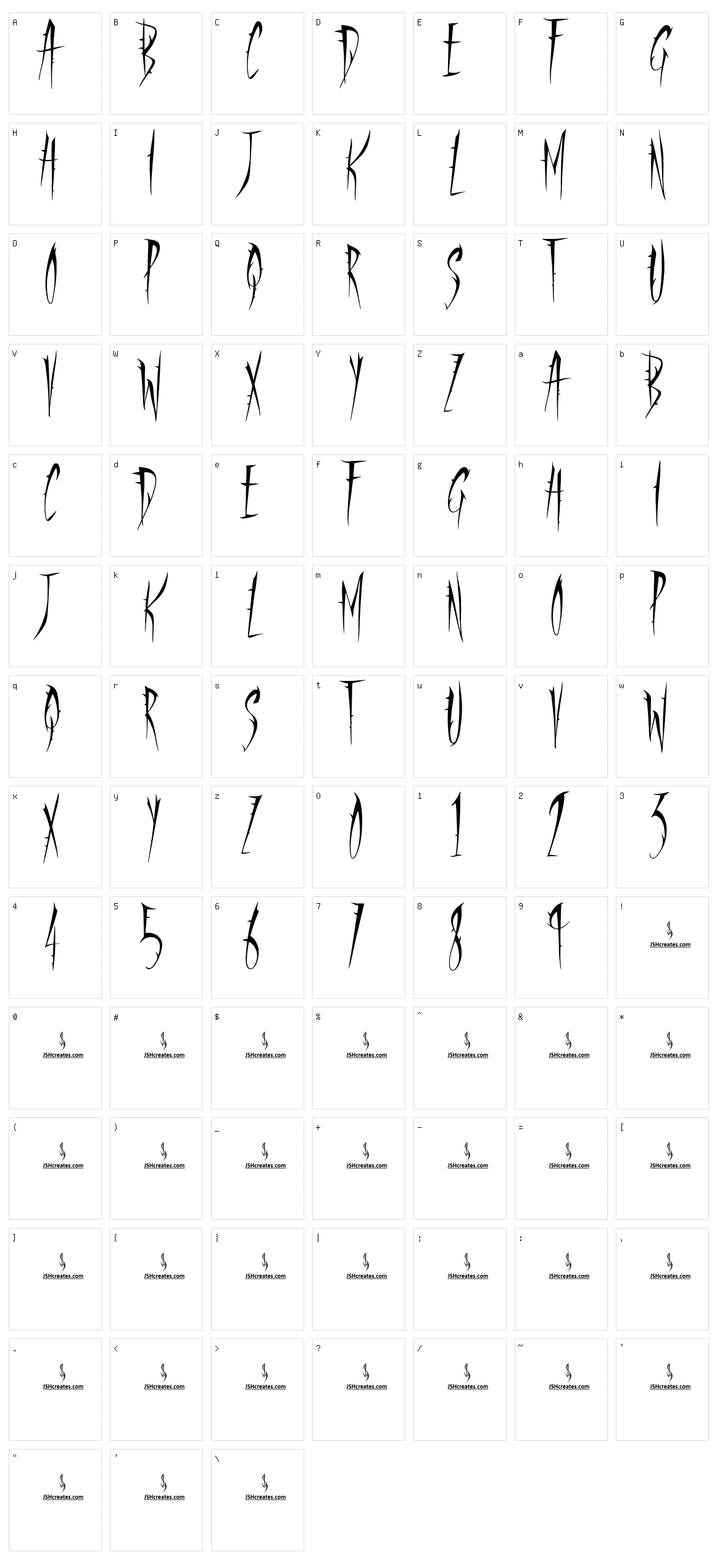
The free font Panic Room is carefully designed by JSH creates, showcasing a thoughtful balance of creativity and usability and falls under the Horror font style. When you download the ZIP file, it contains only 29.79 KB of font files, making it lightweight and quick to download. Please review the license details below to understand permitted usage and distribution rights. If license information is not available, we recommend using this font for personal projects only or contacting the author directly for commercial usage permissions.